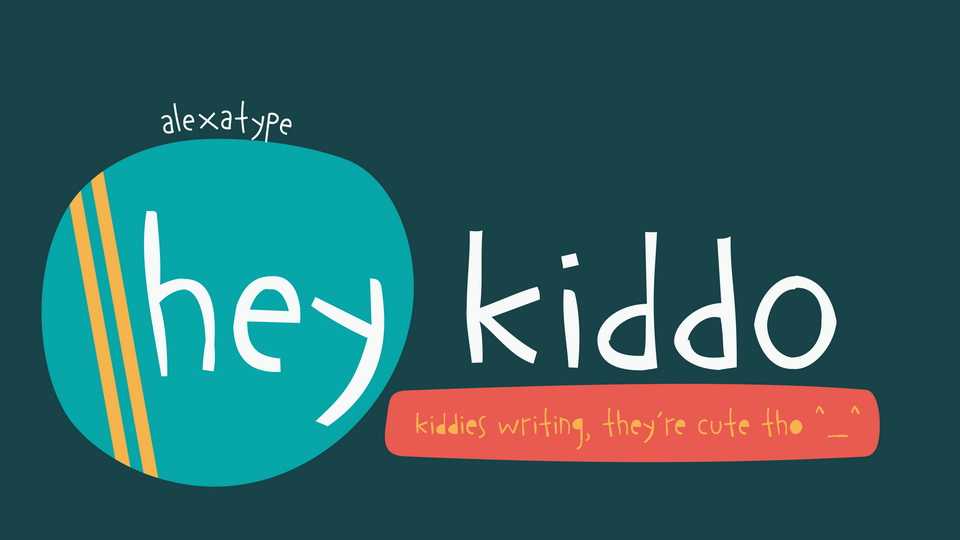
Download Hey Kiddo font, a decorative handwritten children font with up and down baseline. Hey Kiddo is perfect to be used as a headline, display, body text in children book, websites and infographics.
Designer: Alexatype